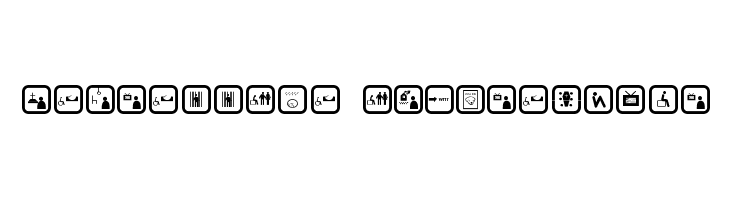
A bold, dynamic font with slanted uppercase and rounded lowercase letters.
Pictographic recreation and wayfinding symbols with high-contrast, simple icons.
A bold, pixelated font inspired by classic arcade games.
A mystical, hand-drawn font with brush-like strokes and artistic flair.
A bold, cursive script font with a textured, handcrafted feel.
An elegant script font with intricate loops and swirls, perfect for artistic projects.
A bold, jagged, and dripping font perfect for horror themes.
A playful, handwritten font with smooth, rounded strokes and a casual, friendly appearance.
A bold, jagged font with a horror-inspired, dripping effect.
设计师偏爱 Hussar Milosc, DNR Recreation Symbols, Arcade Alternative, Mystic Soul and Betterly,因为其造型干净、适用范围广—— 从品牌识别到落地页、海报都能胜任。